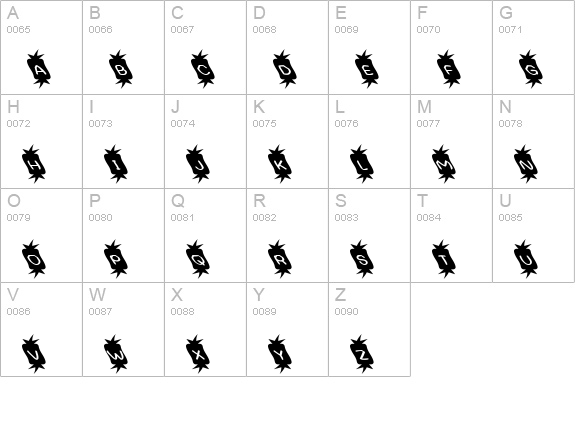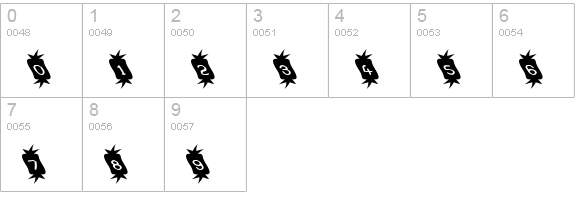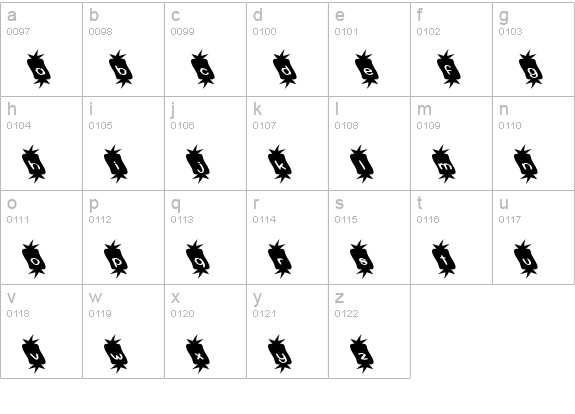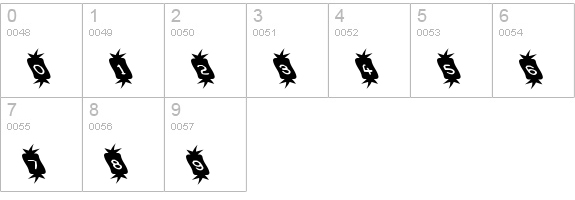
Introducing Optimistic Pessimist font - a unique and versatile typeface that beautifully blends the contrasting elements of optimism and pessimism. This font exudes a sense of playful positivity with its whimsical curves and cheerful demeanor, while also hinting at a touch of realism and skepticism through its bold strokes and sharp edges. Optimistic Pessimist font is the perfect choice for designers looking to convey a message that is both hopeful and grounded, making it suitable for a wide range of projects, from branding and marketing materials to editorial design and social media graphics. What's more, this font is completely free to download at FontsMarket.com, allowing you to easily access and use it in your creative endeavors without any cost. Don't miss out on the opportunity to add this delightful font to your collection and infuse your projects with a unique blend of optimism and pessimism.